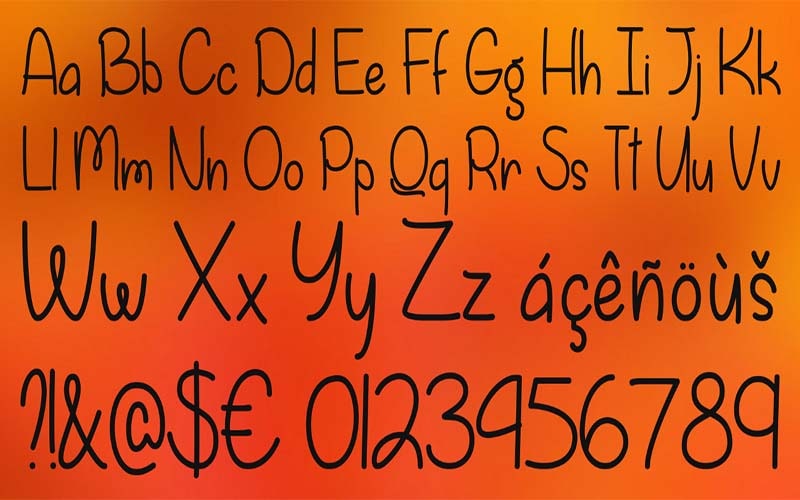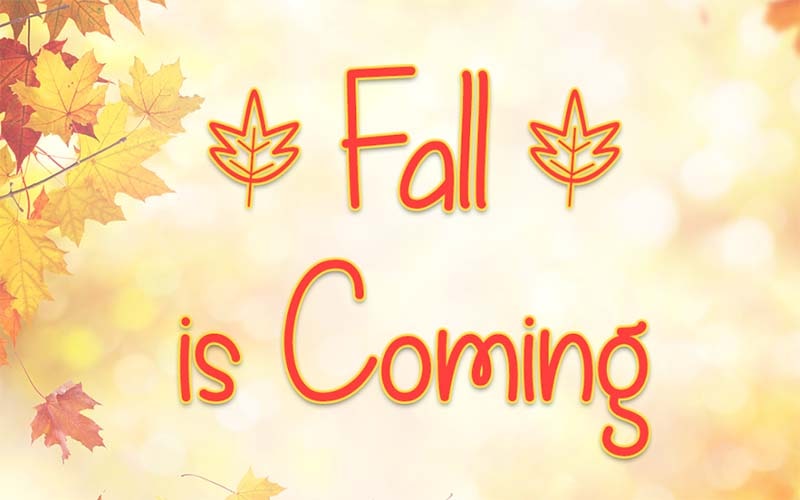
Fall is Coming Font is a high-quality Handwritten typeface. This amazing typeface is layered to give an outstanding look to your projects which makes it popular around the world.
This astonishing font is designed by Misti’s Fonts. This stunning font consists of stylish and effective characters. Use this typeface to create more attractive designs.
Due to its stylish texture, you can use this font for designing Posters, books, invitation cards, business cards, emblems, banners, clothing, website templates, and littles.
A free version font style contains a strong character set including numbers, uppercase, lowercase letters, and punctuation marks. Let’s take a look at its beautiful texture.
Fall is Coming Font
| Font Name: | Fall is Coming Font |
| Style: | Script, Handwritten, Typeface |
| Font Designer: | Misti’s Fonts |
Moreover, this font supports multiple languages such as African, Albanian, Croatian, Danish, Dutch, English, German, Italian, Polish, Portuguese, Slovenian, Spanish, Swedish, and Zulu.